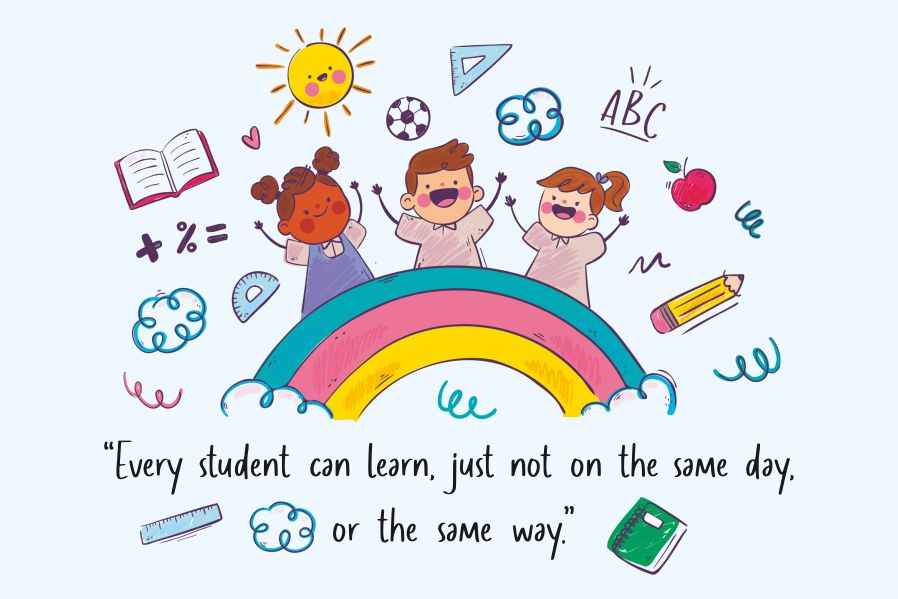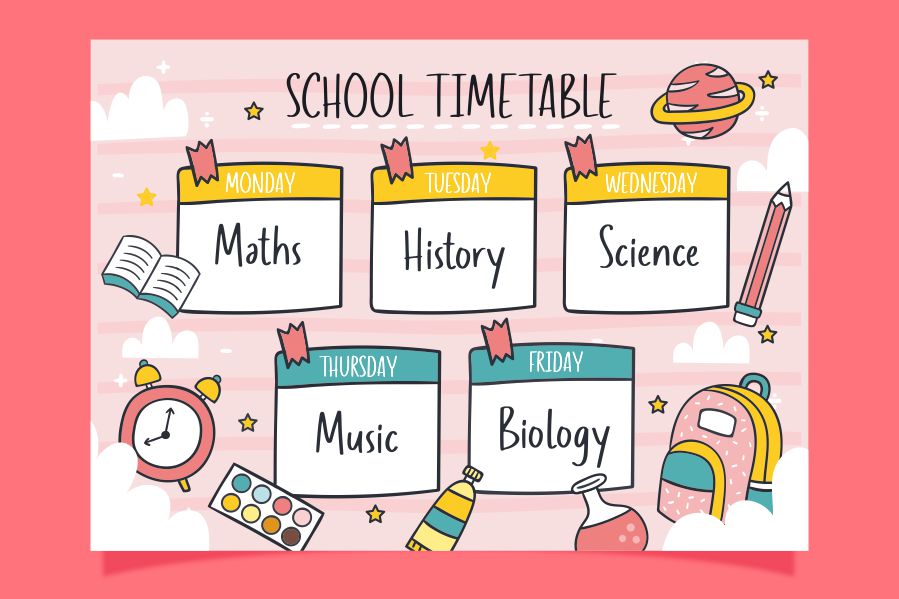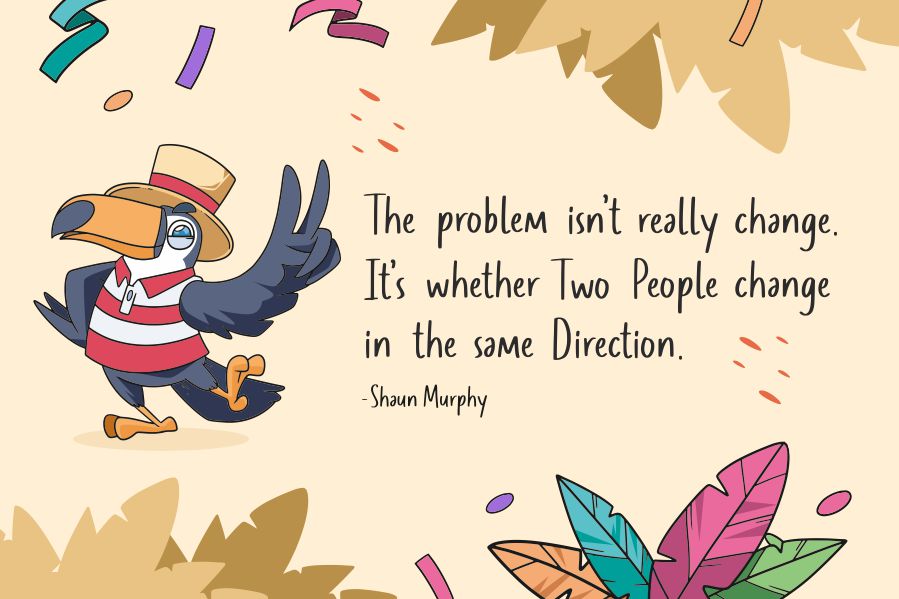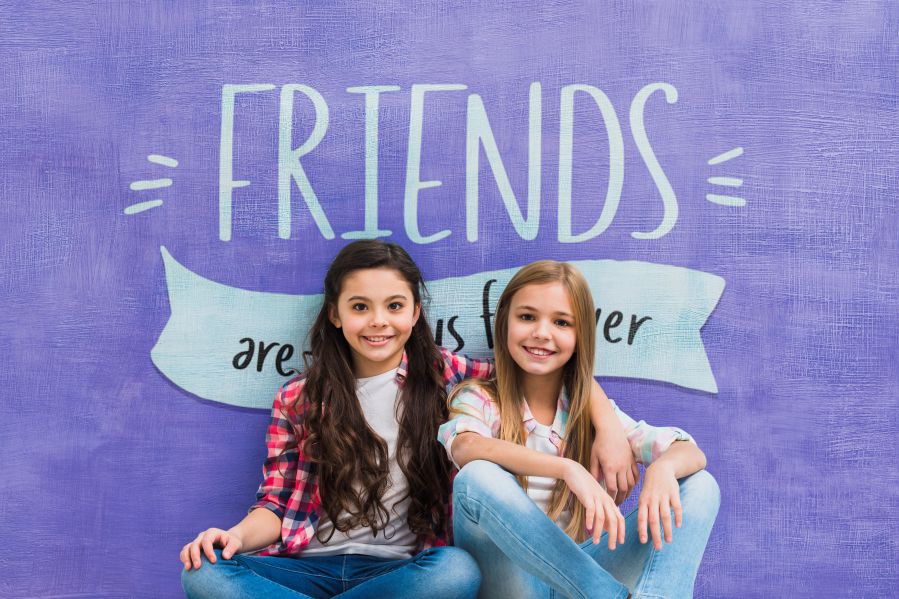
Chuello Jambully Font
Chuello Jambully Display Font
This is a clean and adaptable script font. Whatever the topic, this font will be a wonderful asset to your font library, as it has the potential to enhance any creation.
Allouse.Studio